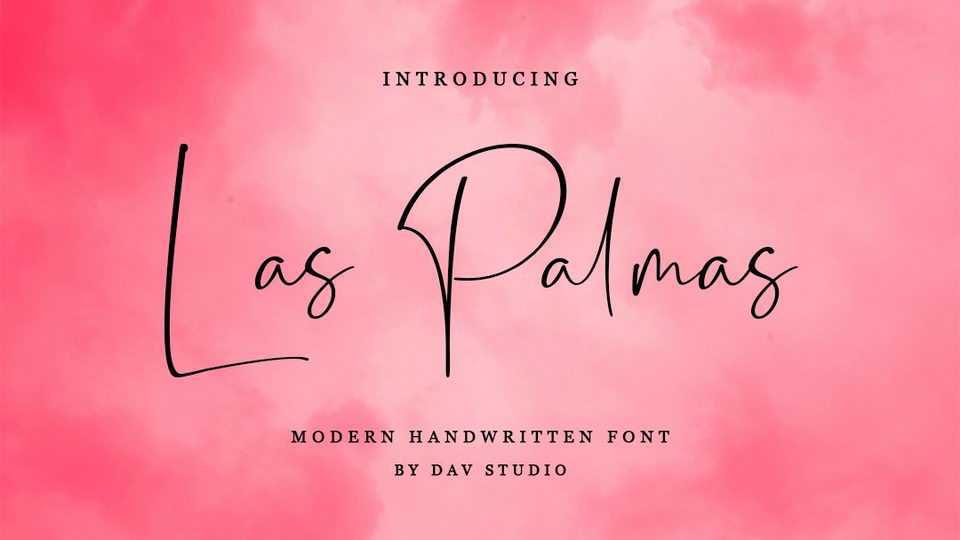
Download Las Palmas font, a casual handwritten typeface with beautiful modern scratches. Las Palmas is very suitable for personal branding, logos, mockups, and other DIY projects.
Designer: Dav Studio